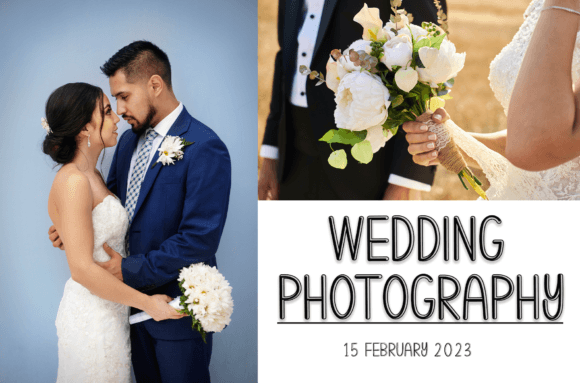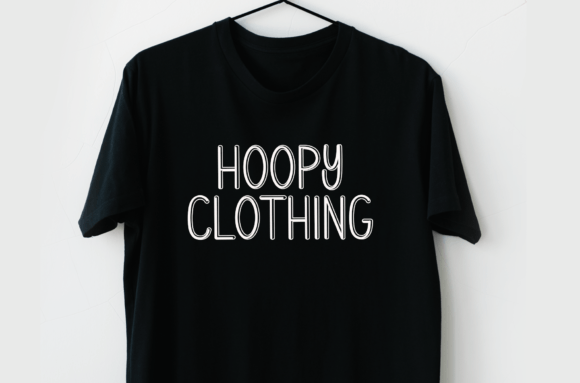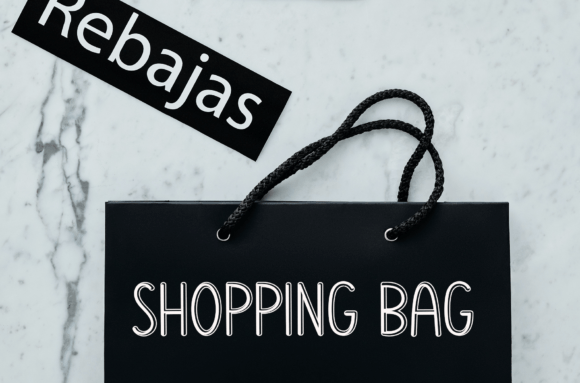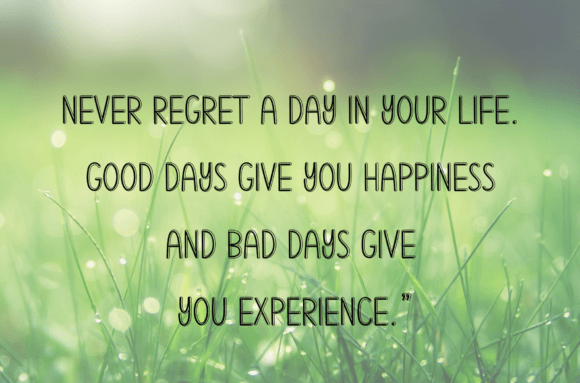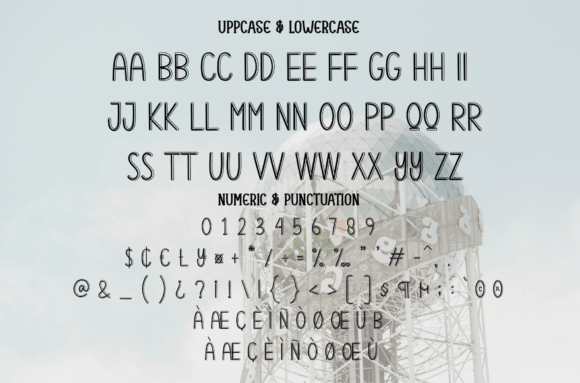
Adding a Personal Touch to Your Design
Have you ever stared at a blank page, trying to come up with the perfect font to bring your project to life? We’ve all been there – the blank slate staring back at us, waiting for our creative spark. That’s when it hits you – the perfect font that will make your design stand out from the crowd. For many of us, that perfect font is the Alphabet Font.
This charming handwritten font is the perfect addition to any design, adding a unique and playful element that will leave a lasting impression. With its flowing lines and adorable details, the Alphabet Font is a must-have for designers looking to give their work that extra flair. Whether you’re creating a birthday card, a wedding invitation, or a children’s book, this font is sure to bring a smile to your face and a touch of personality to your design.
Key Features of Alphabet Font
- Font Family: Alphabet Font is a sans-serif font family designed for digital use.
- Unique Characteristics: Alphabet Font features a distinctive, modern design with clean lines and geometric shapes.
- Font Weight and Style: Available in light, regular, medium, bold, and italic styles.
Alphabet Font Review
Overall, I think the Alphabet Font is a solid choice for everyday use, especially for those who want a clean and simple look. ✨ It’s easy to read and doesn’t get distracting, even at smaller font sizes.
Here are some of its strengths:
- ✨ High legibility: As I mentioned earlier, the font is very easy to read, making it perfect for documents, articles, and even web content.
- ✨ Versatility: Alphabet Font comes in a range of weights and styles, making it suitable for various design projects.
- ✨ Versatile usage: This font is great for both digital and print materials.
- ⚠️ Limited expressiveness: The font’s simplicity can sometimes make it feel a bit flat or uninteresting, especially when used for creative projects that require more personality.
- ⚠️ Not ideal for headlines: While Alphabet Font works well for body text, it may not be the best choice for headlines or titles due to its plain appearance.
Overall, I’d give the Alphabet Font 3.5 out of 5 stars. It’s a dependable choice for everyday use, but it may not be the best fit for projects that require more flair or creativity.
Tips for Getting the Most Out of Alphabet Font
Use the Alphabet Font to create eye-catching headings and titles. Experiment with different font sizes and colors to add visual interest to your designs.
The Alphabet Font is ideal for: creating children’s book covers, designing educational materials, and crafting personalized stationery. You can also use it to add a playful touch to your branding and marketing materials.